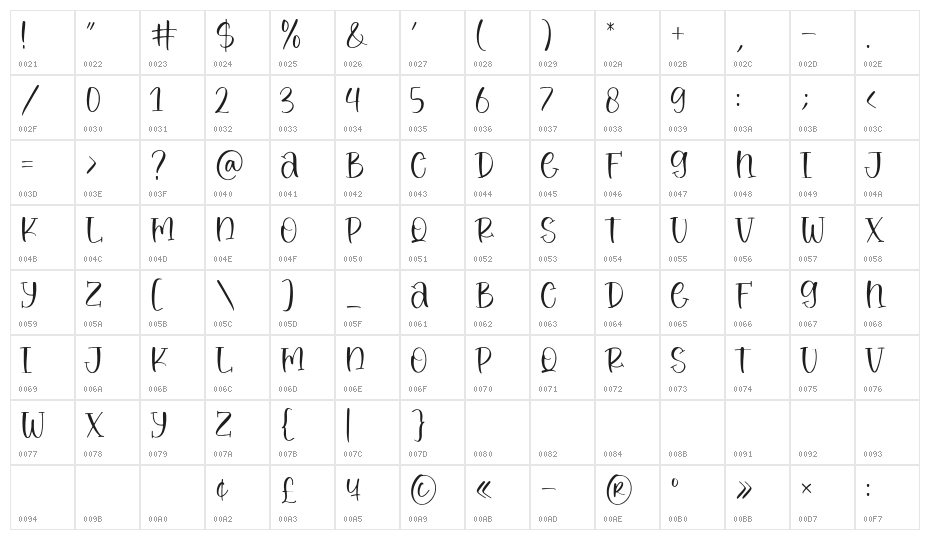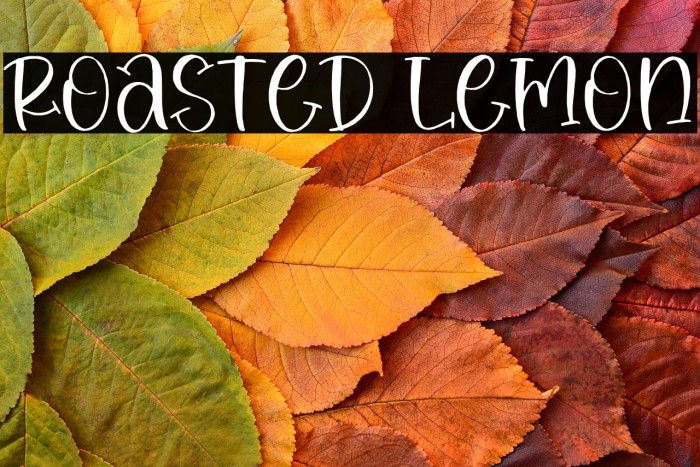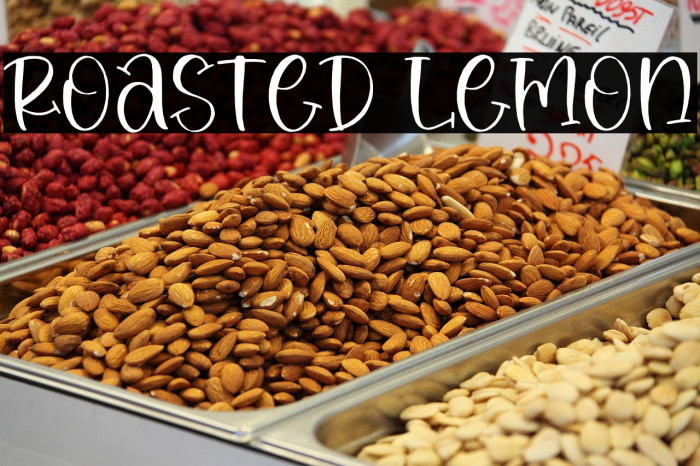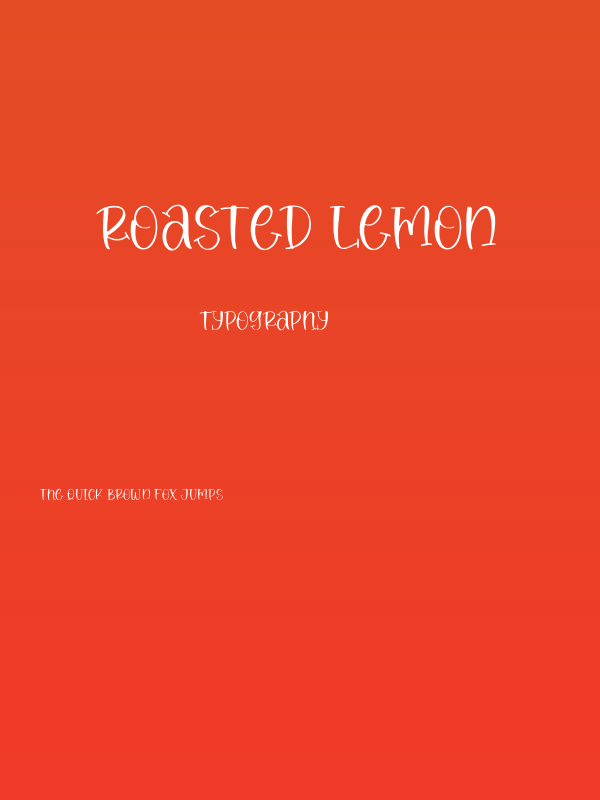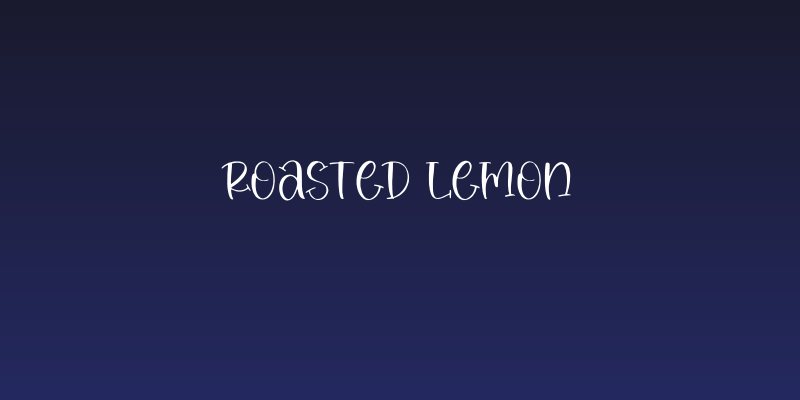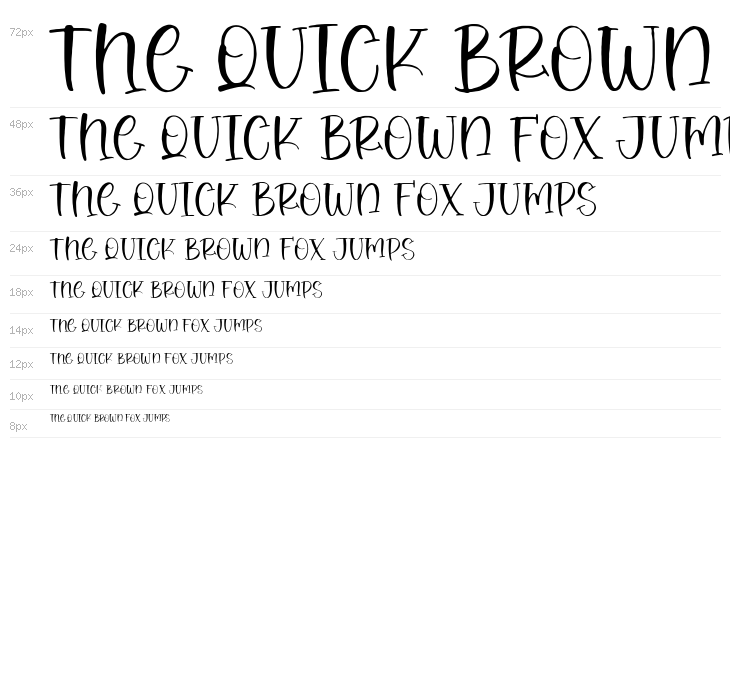
Roasted Lemon Font
Roasted Lemon Description
This font features a playful and whimsical style with a handwritten appearance. The characters are slightly slanted, giving a dynamic and lively feel. The strokes are moderately thick, with a consistent weight throughout, adding to its legibility. The letters have unique, quirky details, such as loops and curls, which enhance its decorative nature. The numbers and special characters maintain the same playful aesthetic, making it versatile for various creative projects. The overall design is both charming and approachable, suitable for a range of informal and fun applications.
| Proposed Projects | Ideal for greeting cards, children's books, playful branding, and social media graphics. |